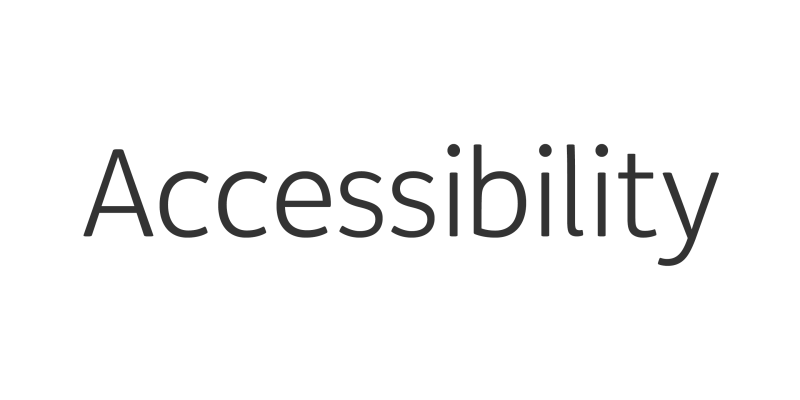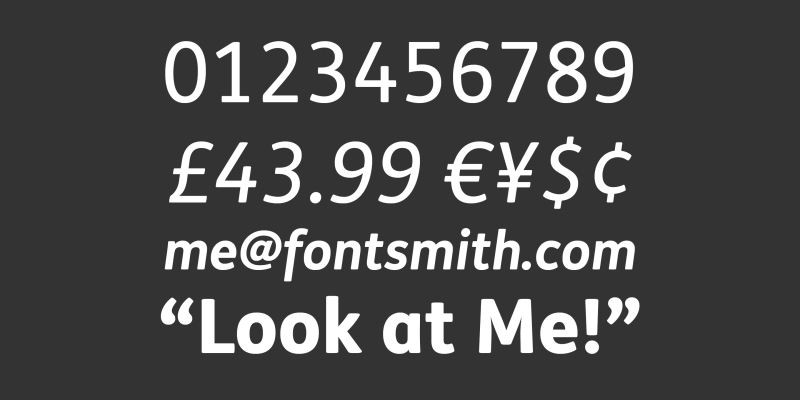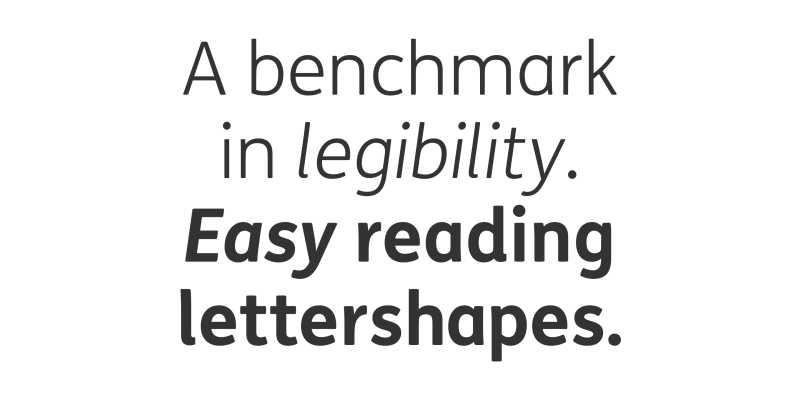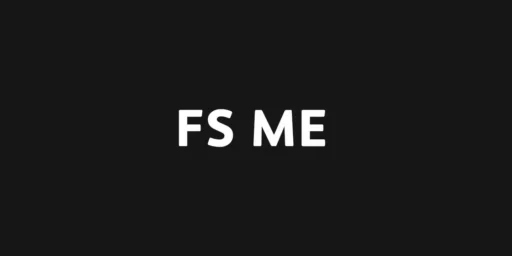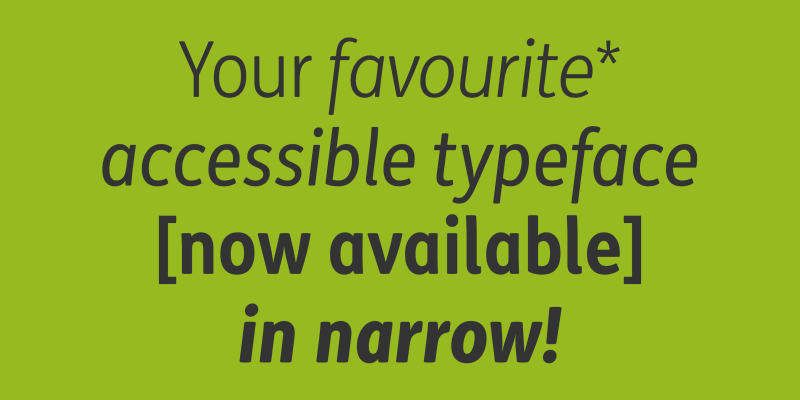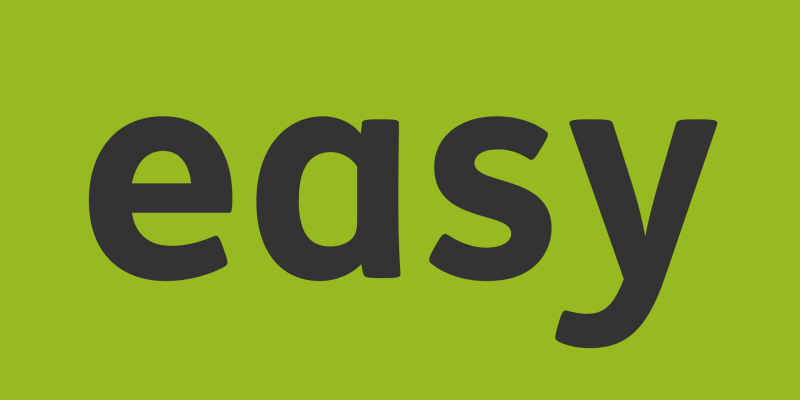
FS Me Font
FS Me is a modern font from Fontsmith, a respected type foundry known for its innovative and high-quality designs. Launched in 2017, FS Me designed by Krista Radoeva and Fernando Mello unveils a fresh and modern interpretation of typography.
One even catches FS Me out of the corner of one’s eye and is surprised at its unusual shapes and amusing details. This font is a mix of geometric and humanist typefaces that make it look friendly and modern. The letters in this font have rounded corners and open counters – its character is soft and friendly.
It is available in different weights and styles, such as graceful Thin, striking Black, and graceful Italics. Most of the options are suitable for any kind of project, allowing designers to select from diverse possibilities.
FS Me is a font widely used in branding, packaging, editorial, and digital interface design. It is especially in demand, when a design needs character and charisma. Although clear and readable, it’s also easily readable when printed in small type. Moreover, its distinctiveness gives some visual attractiveness to titles and display type.
Besides the appealing look of FS Me, there are some rather useful features. It is available in different languages and with different OpenType features such as alternate characters, ligatures and stylistic sets. Such features help the designers enhance their typographic compositions by giving them the flexibility to customize their designs in several ways.
This is a flexible and contemporary font that brings modern typography to a new level. With a contemporary yet festive design, numerous weight and style choices, and functional features, this typeface can add value to any designer’s projects, for it provides many expression design opportunities.
Where FS Me Font works best
FS Me Font stays legible at small sizes, which makes it a strong choice for navigation, buttons and dashboards in web design and app interfaces.
Clean sans serifs like FS Me Font are the default language of SaaS, fintech and product branding.